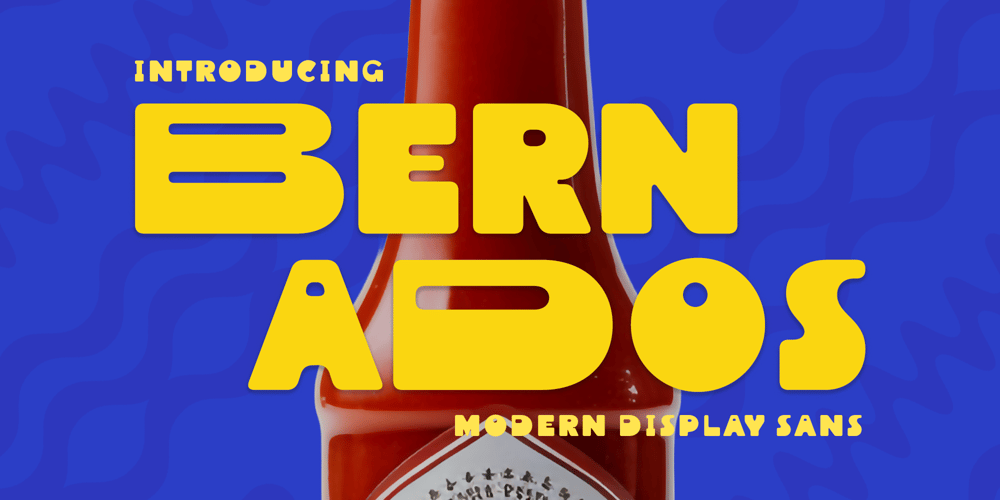
Bernados
Bernados font
Bernados Font Family was designed by Dede Kurniawan and published by Creatifont Studio. Bernados contains 2 styles and family package options. Bernados – is a display sans serif font that explodes with personality! Its super rich bold strokes create a visually striking presence, while the unique counter shapes add a touch of whimsy. Though bursting with personality, Bernados maintains a clean and contemporary aesthetic. This ensures your designs stay fresh and relevant, even with a heavy dose of playful fun. Bernados is more than just a pretty face. It empowers your creativity with its excellent legibility and versatility. Bernados is Ideal for Any design project that craves a dose of bold, playful fun. Bernados isn’t just a font, it’s a party on a page! Let your designs radiate joy and bring a smile to your audience’s face.A SUMMARY OF WHAT’S INCLUDED: Latin Simple Character A-Z, a-z, 0-9, Punctuation, symbols, accent and diacritic Regular and Italic Styles Support multilingual language Works on PC & Mac Simple installation Accessible in Adobe Creative Suite (Ai, Ps, Id, etc.) even work on Microsoft Word. PUA Encoded Characters – Fully accessible without additional design software. 🌟If you come across any issues or notice anything we might have overlooked while using this product, please feel free to reach out to us. We greatly value your feedback as it helps us enhance and refine our products. Thank you!